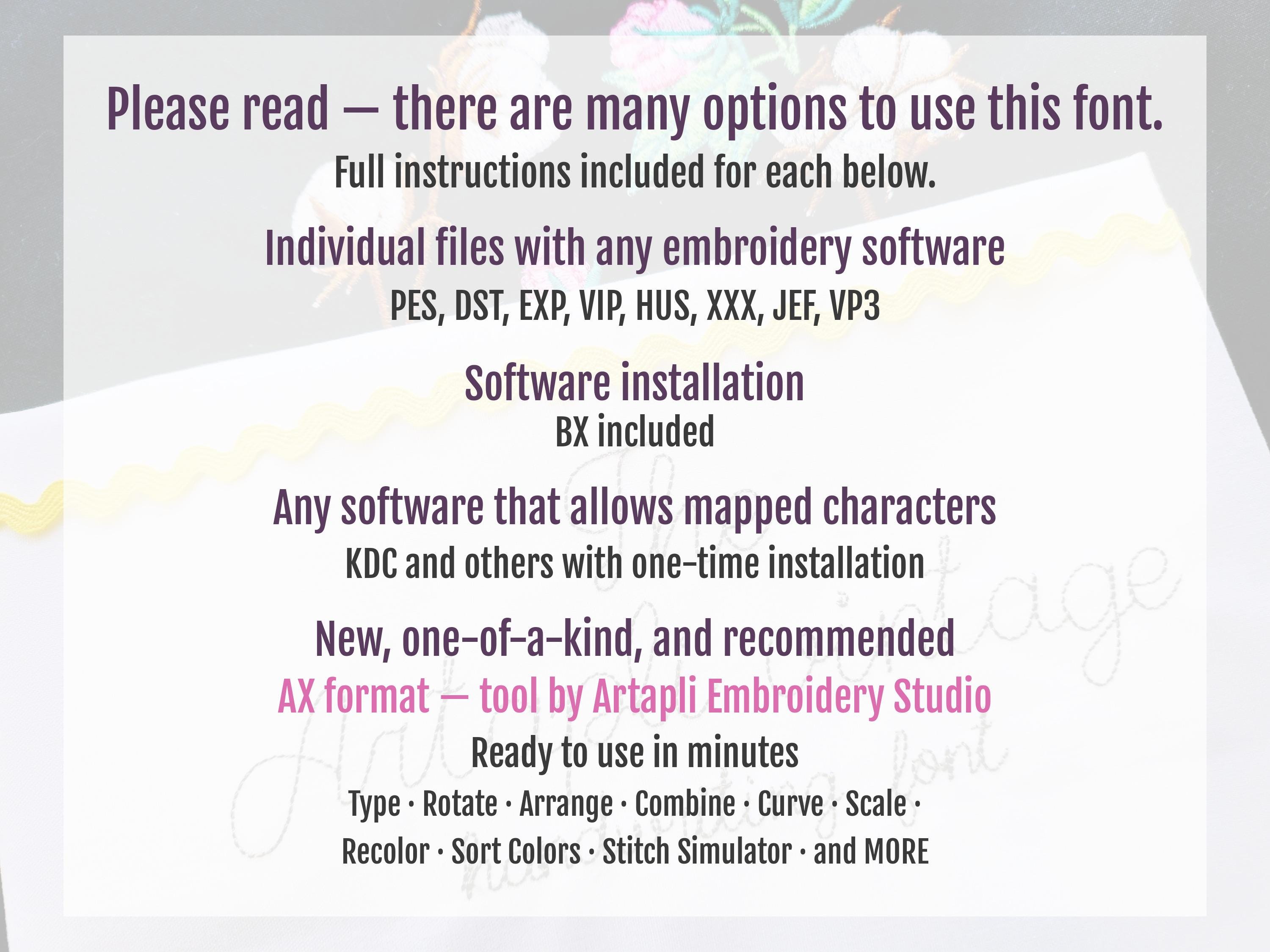
Handwriting Font, mini micro tiny alphabet letters in assorted sizes, line outline stitch machine embroidery designs versatile BX font
Whole alphabet A-Z, uppercase letters, lowercase letters and special punctuation & . # ?